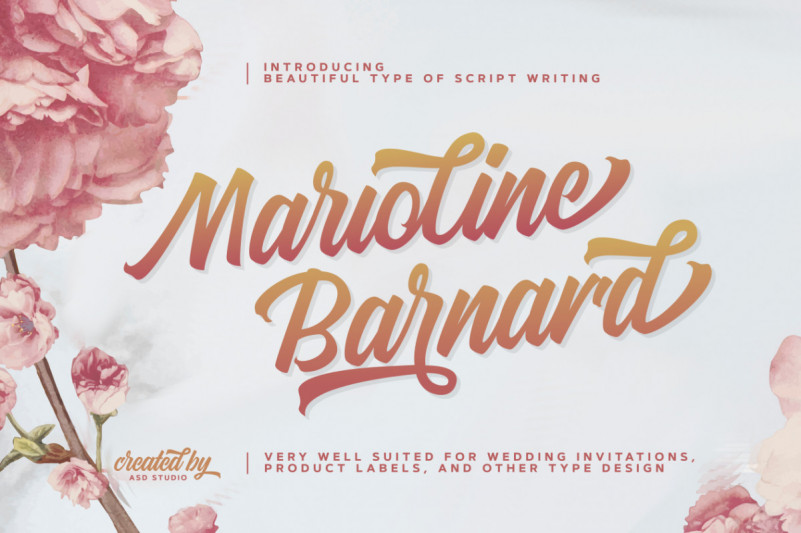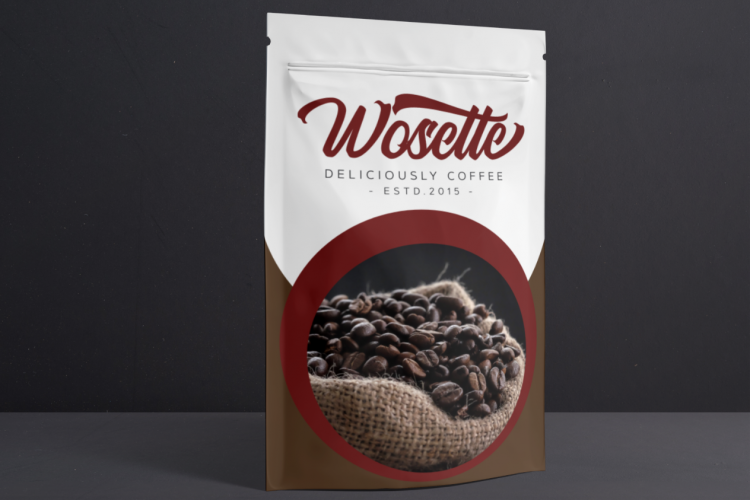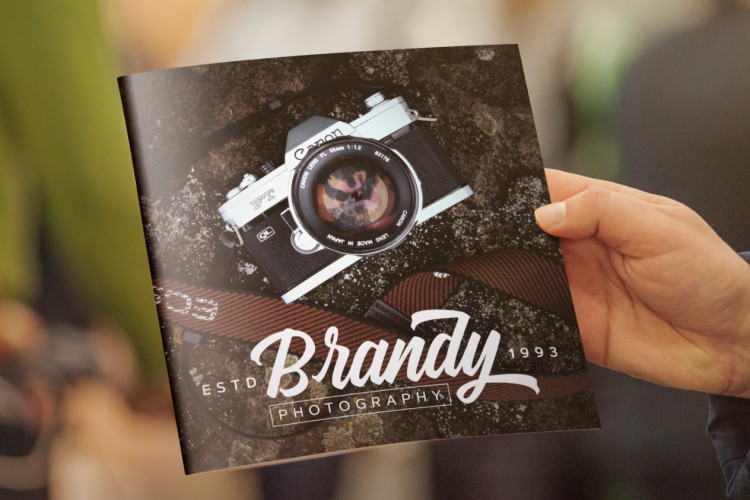
Introducing my Marioline Barnard Script, a passionatly crafted fancy script. Marioline Barnard script can fully my expectation for script that give you luxurious vibes as much as casual vibes, elegant but simple, strong but light.
Marioline Barnard comes with beautiful uppercase and lowercase alternates (up to 11 level alternates, ligatures include), and swashes.
Marioline Barnard has Multilingual support (Western European characters) and works with following languages: English, French, Italian, Portuguese, German, Swedish, Norweigen, Danish, Dutch, Finnish, Indonesian, Filipino, and Malay.